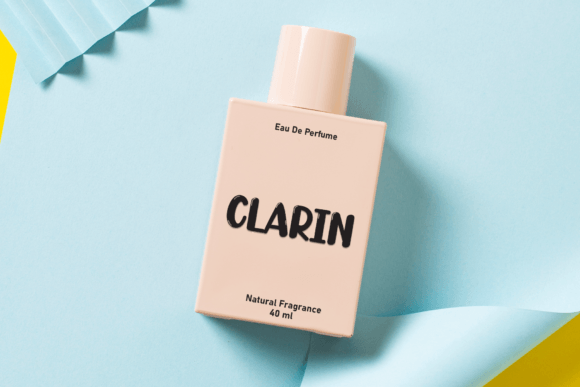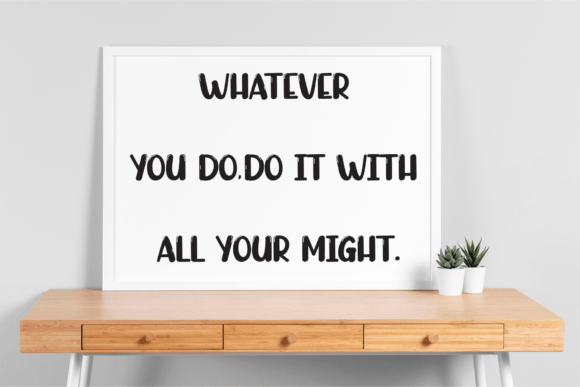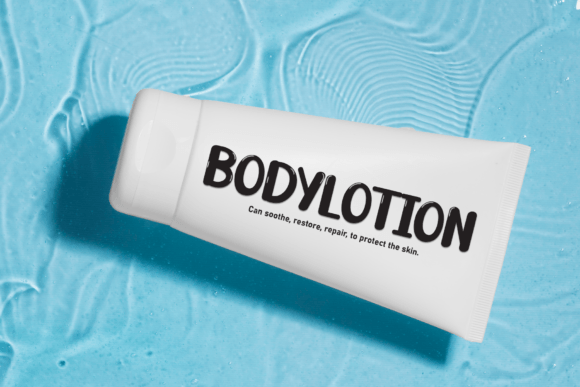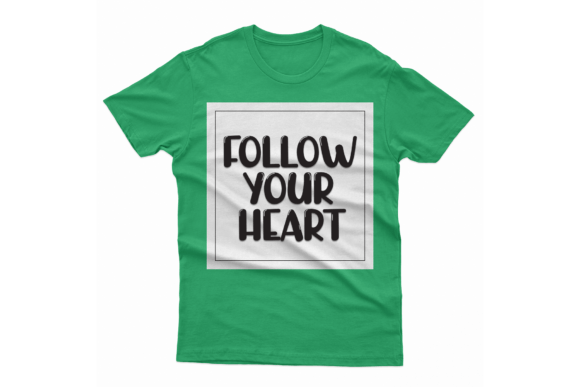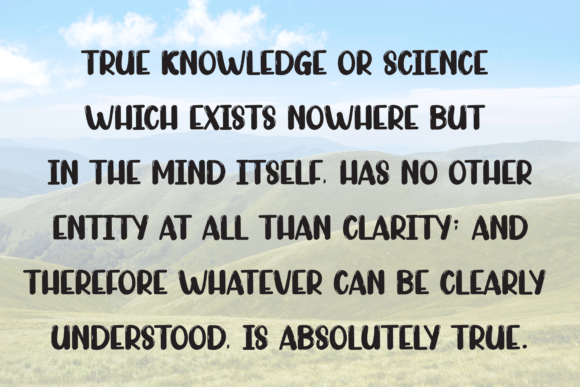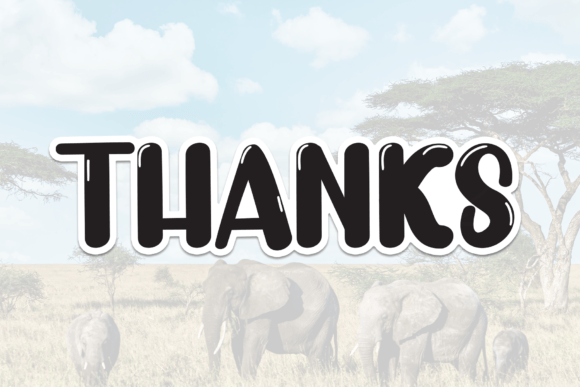
Introducing Animal Font: The Sweet and Friendly Handwritten Font for Your Design Needs
Are you a designer or crafter looking for a font that can add a touch of whimsy and fun to your designs? Look no further than Animal Font, a sweet and friendly handwritten font that’s perfect for a variety of projects. In this article, we’ll take a closer look at Animal Font, its features, and how you can use it to elevate your designs.
What is Animal Font?
Animal Font is a beautiful handwritten font that’s designed to bring a smile to your face. It’s a cute and fun font that’s ideal for writing wedding invitations, cards, or any other design that might need a fun touch. With its playful and carefree vibe, Animal Font is sure to capture the attention of your audience and leave a lasting impression.
Key Features of Animal Font
So, what makes Animal Font so special? Here are some of its key features:
- Handwritten style: Animal Font has a beautiful handwritten style that’s perfect for creating personal and unique designs.
- Cute and fun: This font is designed to be playful and fun, making it ideal for designs that need a touch of whimsy.
- Versatile: Animal Font can be used for a variety of projects, from wedding invitations and cards to posters and social media graphics.
- Easy to read: Despite its playful style, Animal Font is easy to read, making it perfect for designs that need to communicate a message.
How to Use Animal Font in Your Designs
Now that we’ve covered the features of Animal Font, let’s talk about how you can use it in your designs. Here are some ideas to get you started:
- Wedding invitations: Animal Font is perfect for wedding invitations, as it adds a touch of romance and whimsy to your design.
- Cards and stationery: This font is also great for creating cute and fun cards and stationery, such as birthday cards, thank-you cards, and more.
- Posters and flyers: Animal Font can add a playful touch to your posters and flyers, making them stand out from the crowd.
- Social media graphics: Use Animal Font to create fun and engaging social media graphics, such as Facebook posts, Instagram stories, and more.
Tips for Getting the Most Out of Animal Font
Here are some tips for getting the most out of Animal Font:
- Pair it with other fonts: Animal Font pairs well with other fonts, such as sans-serif fonts and script fonts. Experiment with different pairings to find the one that works best for your design.
- Use it in combination with images: Animal Font looks great when paired with images, such as illustrations and photographs. Use it to add a touch of personality to your design.
- Experiment with colors: Animal Font can be used with a variety of colors, from bright and bold to soft and pastel. Experiment with different colors to find the one that works best for your design.
In conclusion, Animal Font is a sweet and friendly handwritten font that’s perfect for designers and crafters who want to add a touch of whimsy and fun to their designs. With its playful and carefree vibe, Animal Font is sure to capture the attention of your audience and leave a lasting impression. Whether you’re creating wedding invitations, cards, or social media graphics, Animal Font is a great choice.